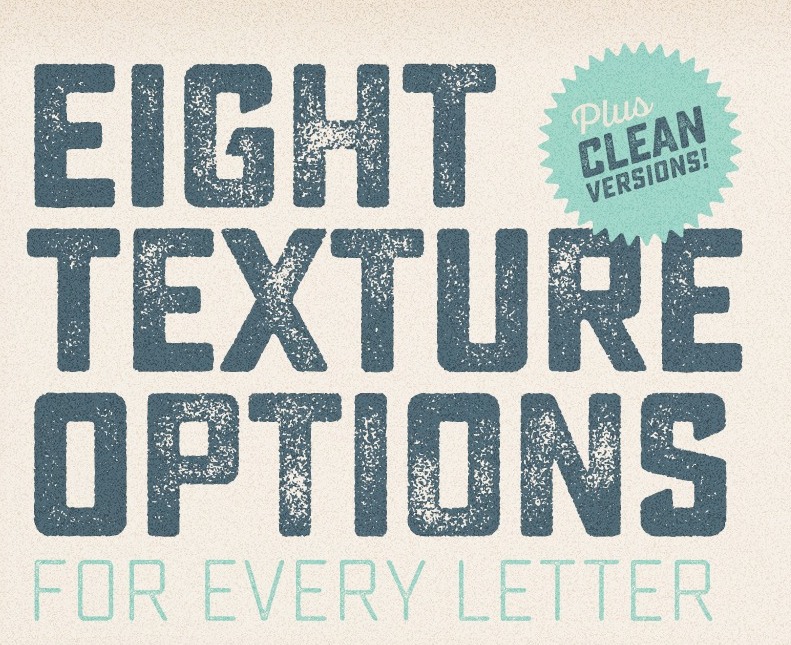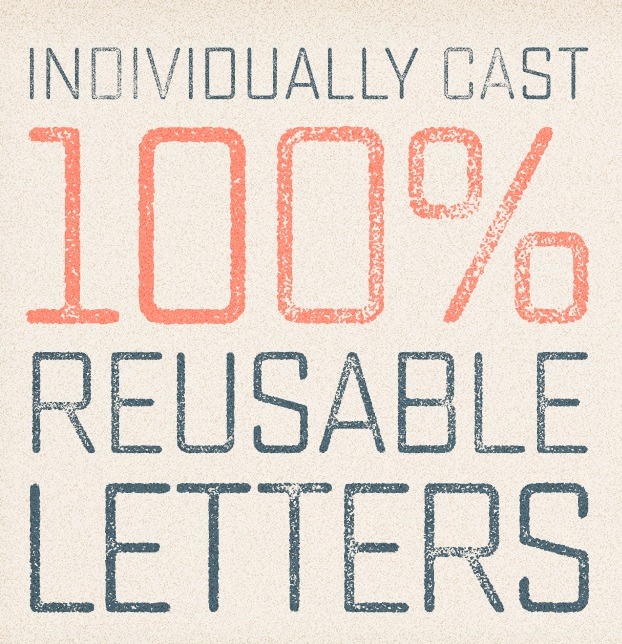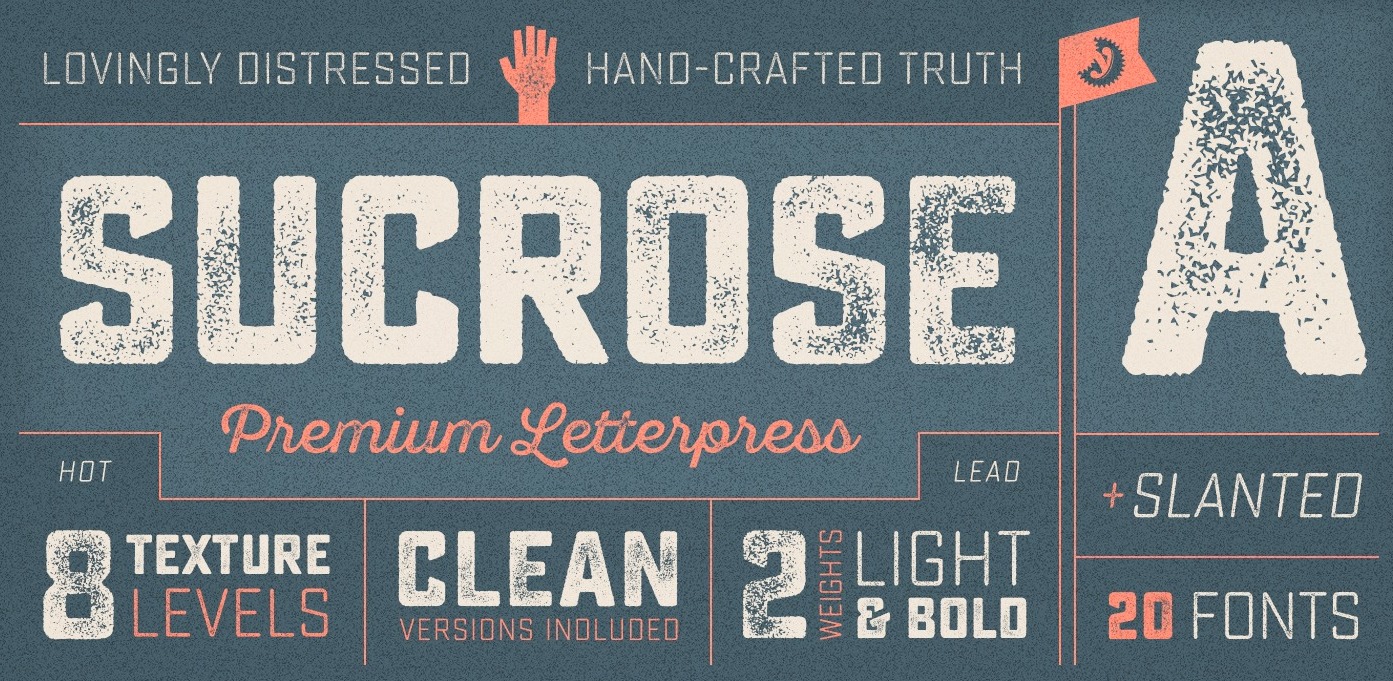
Yellow Design Studio [Ryan Martinson]
Yellow Design Studio is a fine art, graphic design and typography studio based in Sanibel, FL, and before that, in Madison, Wisconsin. The font designer is Ryan Martinson (b. 1972), who is from Chetek, WI. Rena Martinson is the other partner in the venture. Its fonts can be licensed via The Type Founders.
Via MyFonts, they sell fonts such as Cardium (2021: an almost geometric font family in 54 styles), Draft Natural (2019), Draft (2018: a 144-style sans superfamily, followed by Draft B later in 2018), Lullabies (2016, watercolor brush script), Kiln (2016, an eroded caps only letterpress typeface), Canvas Acrylic Megafamily (2016, by Ryan and Rena Martinson), Sucrose (2015, a letterpress emulation family with eight levels of textured distress), Sant Elia Script (2015), Lulo (2014, a stackable chromatic typeface family), Lulo Clean (2014), Thirsty Soft (2014, a vintage signage script family), Eveleth (2014, a detailed vintage letterpress emulation family), Gist (2014, an inline slab serif; one weight is free), Gist Rough (2014, rough letterpress), Verb (2012, a very open sans family; +Verb Condensed, 2013, +Verb Compressed, 2013 +Verb Extra Condensed, 2013), Thirsty Script (2012, a retro connected signage script, which by his own admission, is based on Jack Edmondson's Wisdom Script, a fact he did not originally mention in the typeface description), Thirsty Script Shadow (2012), Thirsty Rough (2012), Thirst Script Extrabold (2014), Anodyne (2012, grungy caps), Veneer (2012, letterpress style), Veneer Clean (2016), and Veneer Extras (2012, dingbats), Melany Lane (2011, a connected school script), Skitch (2011, sketch / blackboard bold face); +Skitch Shaded, Magesta Script (2010, a grungy calligraphic script), and Wausau (2010, an all caps grunge face).